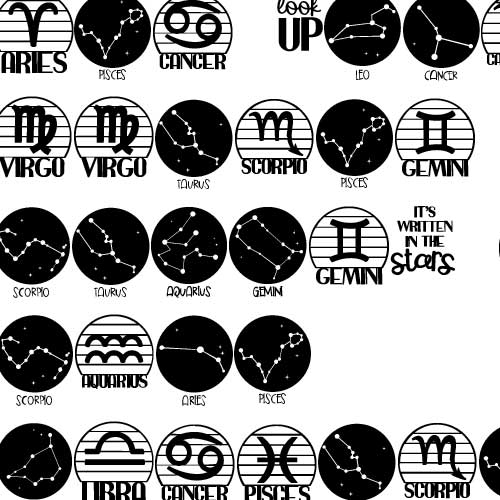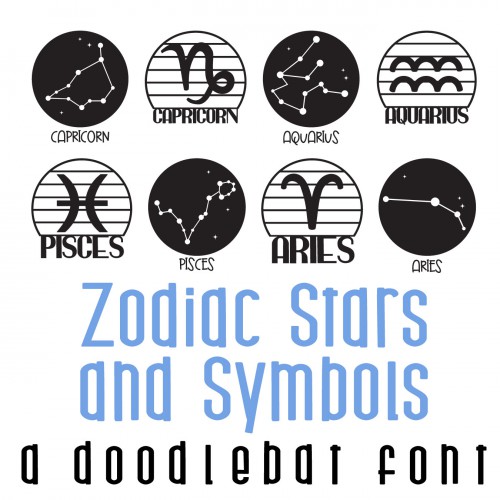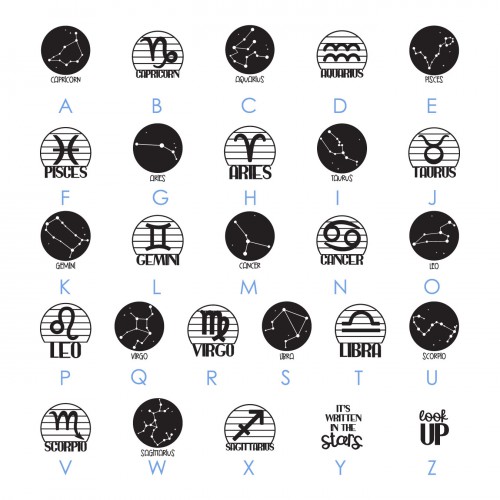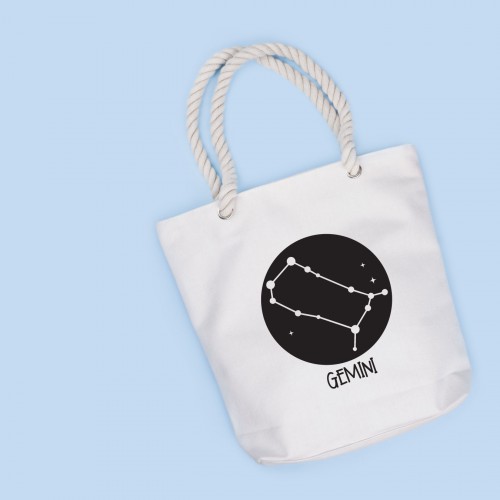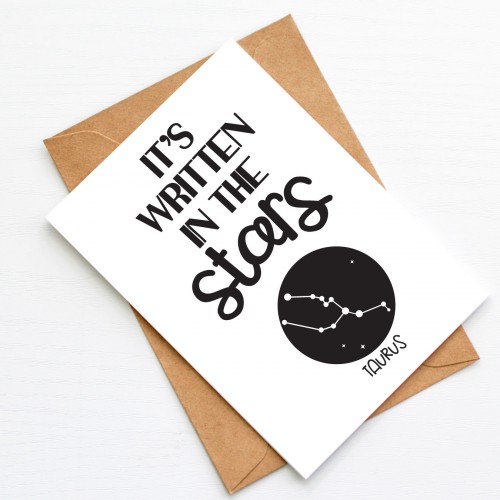
DB Zodiac - Stars and Symbols - DB
This fun doodlebat font features 26 zodiac stars and symbols perfect for calendars, crafts, gifts, planner stickers, scrap book pages and more!